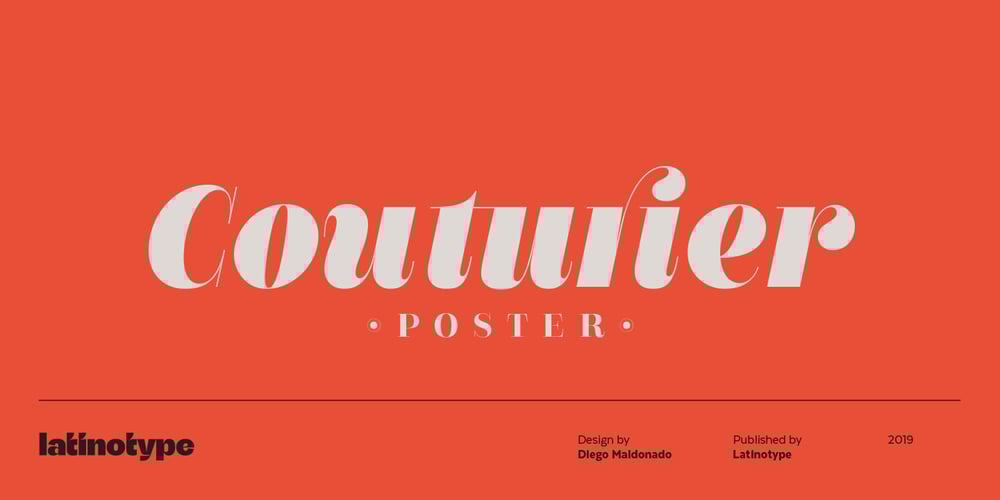
Couturier Poster Font Family was designed by Diego Maldonado and published by Latinotype. Couturier Poster contains 12 styles and family package options. Elegance flows through Couturier Poster soul. The new cousin of early launched Couturier, brings higher contrast and an extended family, perfect for big sizes. Inspired by the didones from the 18th century, its design its heavily influenced by contemporary ideas makes it suitable to use for almost anything you can think of. Equipped with swashes, ligatures, small caps and alternates, this typography is very versatile and allows you to set a big range of compositions with discretion or personality. Couturier Poster comes in six weights and matching true italics, from thin to black. It’s a good choice to pair with Couturier for smaller sizes and Couturier Poster for the big titles. It has a set of 1248 characters that cover more than 200 languages derived from latin.